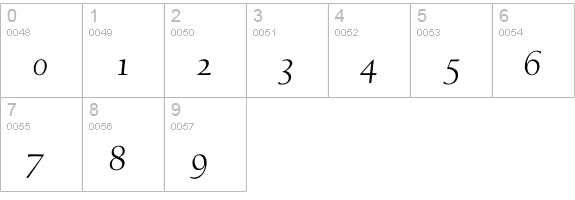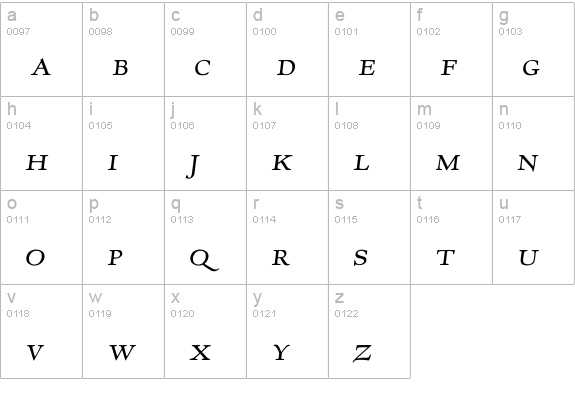
GoudyVillageH-SC-Ita is a stunning and elegant font that exudes sophistication and charm. This font features intricate details and a unique style that will make your designs stand out. The slender and graceful letterforms of GoudyVillageH-SC-Ita add a touch of class to any project, whether it's for invitations, logos, or branding materials. The best part is that GoudyVillageH-SC-Ita is available for free download at FontsMarket.com. This means you can easily access this beautiful font and use it in your creative projects without any cost. Don't miss out on the opportunity to elevate your designs with the timeless beauty of GoudyVillageH-SC-Ita. Download it today and add a touch of elegance to your work!